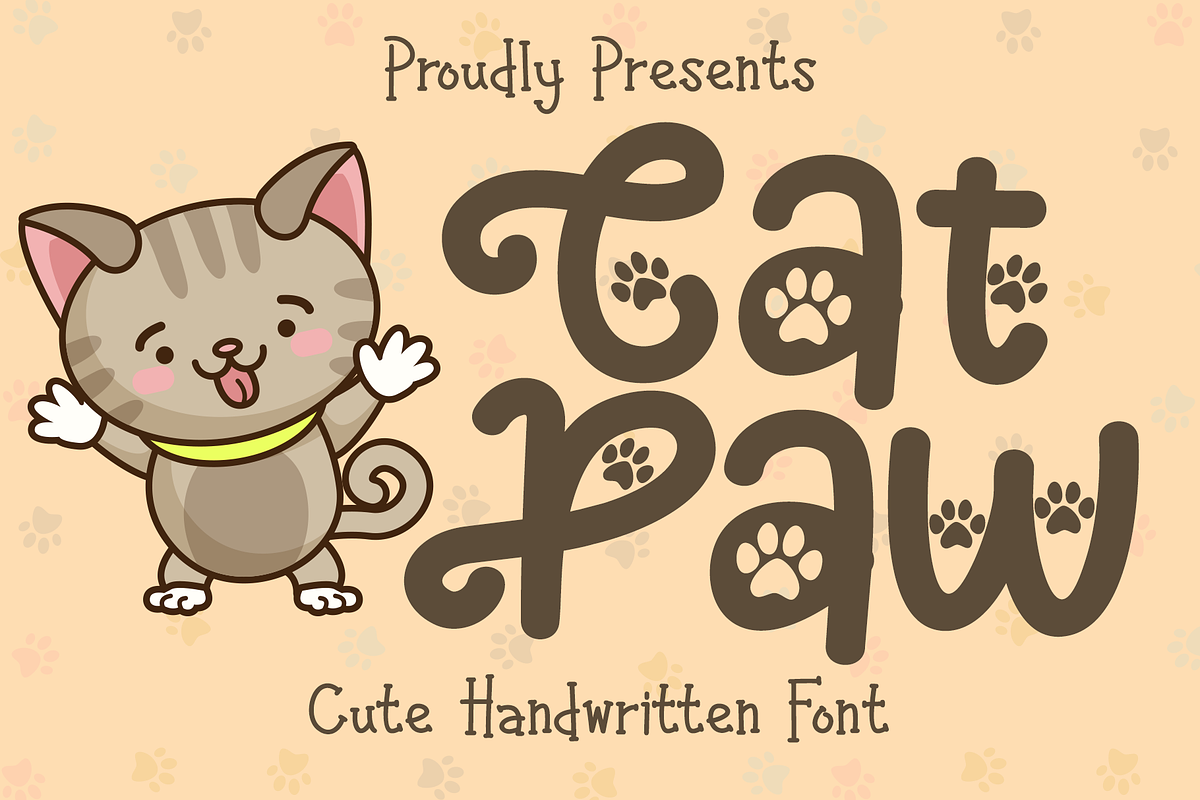
Cat Paw // Display Font Free Download
Cat Paw // Display Font Free Download is a cute, playful typeface designed to capture the heart of cat lovers and creatives alike. With its paw-inspired details and whimsical style, Cat Paw is perfect for pet branding, kids’ projects, greeting cards, t-shirt designs, product packaging, and fun social media posts.
Crafted to be both charming and attention-grabbing, Cat Paw // Display Font Free Download features rounded letterforms with subtle, cat-themed flair—making every word feel friendly and full of personality. Whether you're working on a boutique pet shop logo or a children’s book cover, this font adds a fun, furry twist to your typography.